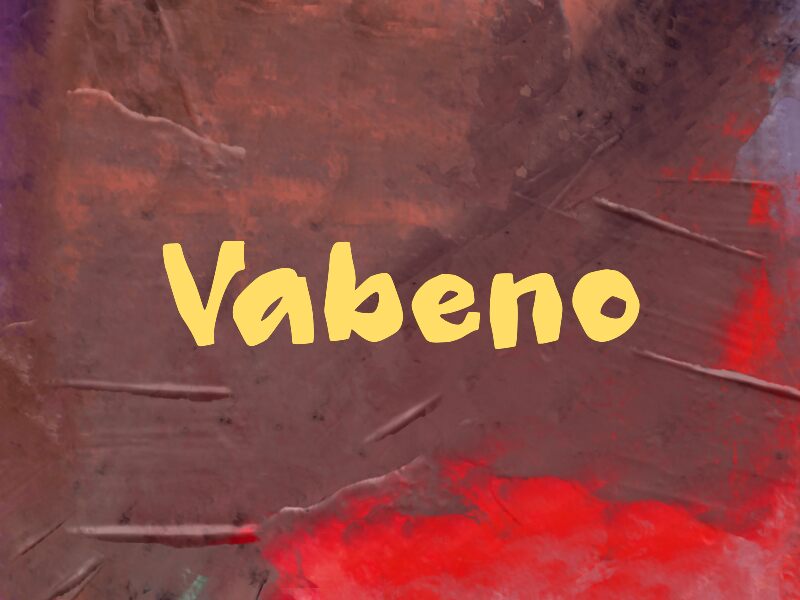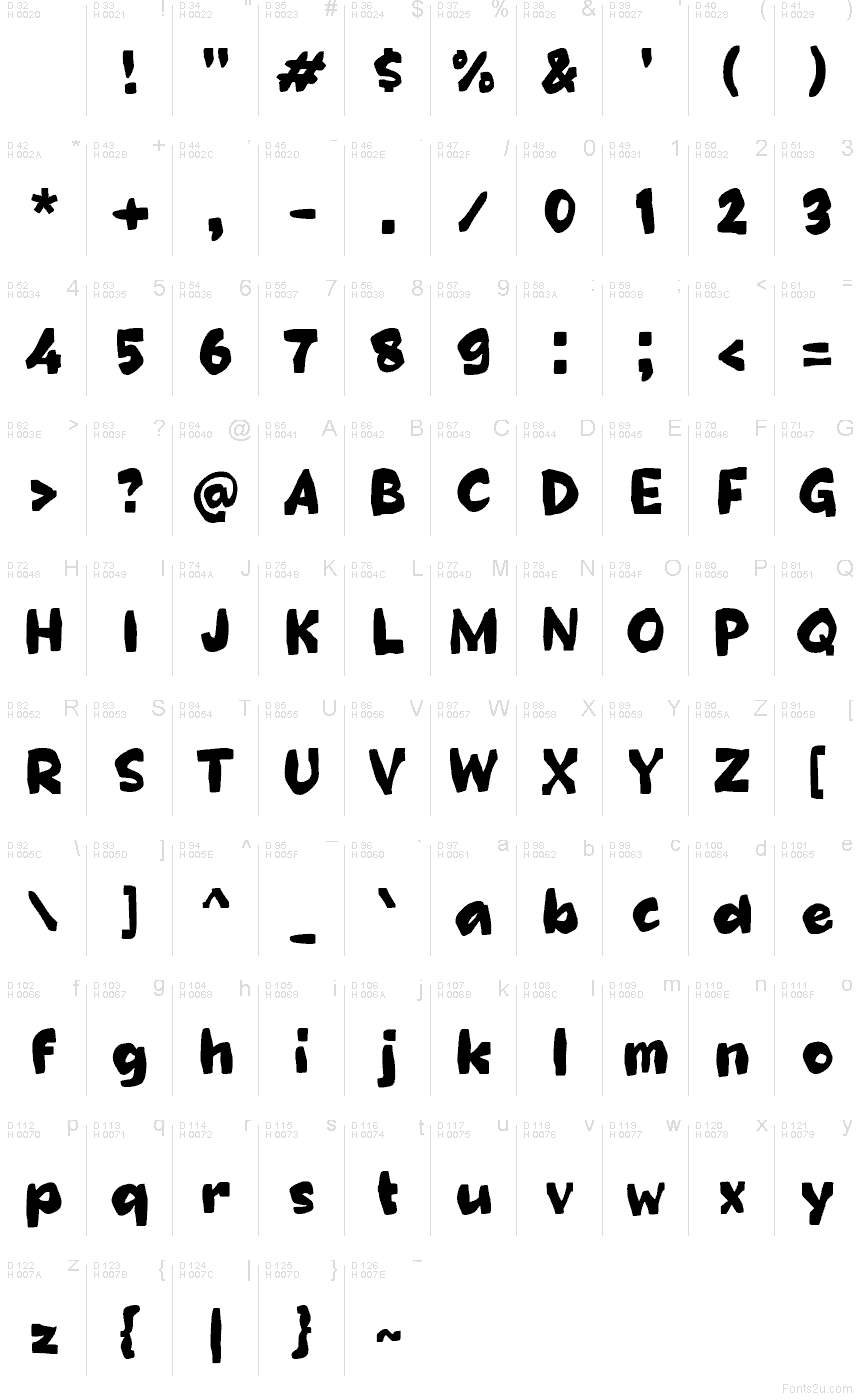
Vabeno
Vabeno font by wepfont.com is a free cartoon display typeface with the energy of quick, inky brush lettering. Its chunky, uneven strokes and loose, hand-painted curves feel like they were dashed off on a poster board, giving every word a bold, noisy personality. The letters lean and wobble just enough to feel playful, while the dense black texture makes headlines and logos pop even at a distance.
Using Vabeno, you can bring a fun, hand-made punch to kids’ event posters, YouTube thumbnails, snack packaging, playful logos, school projects, and social media graphics. This free font shines when you set it big and loud; pair it with a clean, light sans serif for small supporting text so the wild, cartoon energy stays clear and readable.